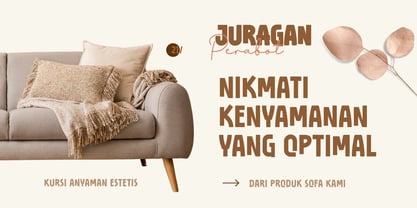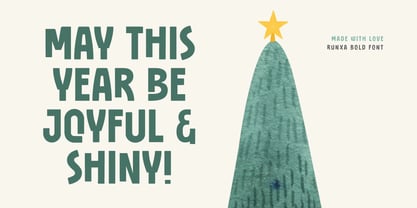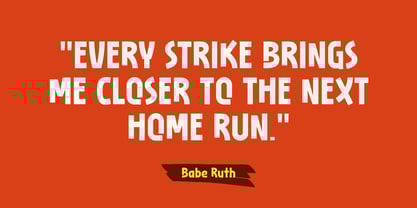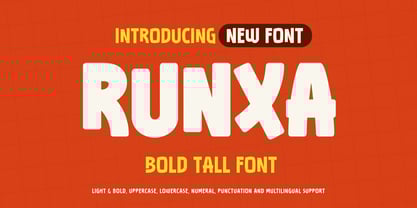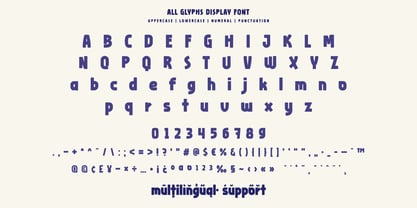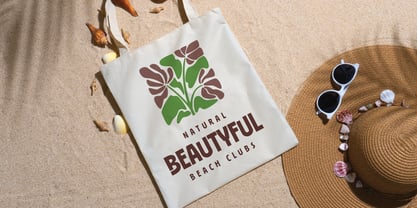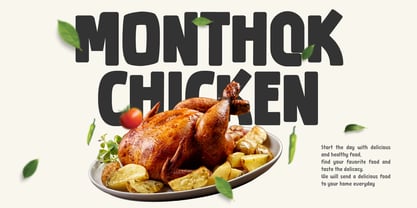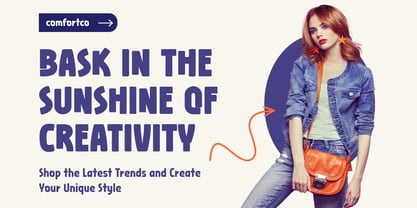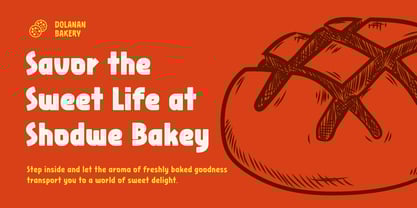
Runxa
by Trabas Kriya
The Runxa Font Family was designed by Murozakul Akhsan and published by Trabas Kriya. Runxa contains 2 styles and family package options. More about this family
Runxa is a striking bold tall display font designed to command attention and elevate your headlines. With its extra-tall letterforms, strong vertical presence, and thick strokes, Runxa is ideal for impactful posters, magazine titles, album covers, sports branding, and streetwear designs.
Its bold stature makes every word stand tall and proud—perfect for projects that need to make a strong, memorable statement. Whether you’re going for edgy, modern, or urban aesthetics, Runxa brings a powerful and stylish energy that resonates across both digital and print media.
Let your text rise above the noise—Runxa is built to stand out and be remembered.
- All glyphs and Feature
- Fonts include Multilingual: Support for 85 languages
Afrikaans, Albanian, Asu, Basque, Bemba, Bena, Breton, Catalan, Chiga, Cornish, Croatian, Czech, Danish, Dutch, Embu, English, Esperanto, Estonian, Filipino, Finnish, French, Friulian, Galician, Gusii, Hungarian, Indonesian, Irish, Italian, Kabuverdianu, Kalenjin, Kamba, Kikuyu, Kinyarwanda, Latvian, Lithuanian, Lower, Sorbian, Luo, Luxembourgish, Luyia, Machame, Makhuwa-Meetto, Makonde, Malagasy, Maltese, Manx, Meru, Morisyen, North, Ndebele, Norwegian Bokmål, Norwegian Nynorsk, Nyankole, Oromo, Polish, Portuguese, Quechua, Romanian, Romansh, Rombo, Rundi, Rwa, Samburu, Sango, Sangu, Scottish, Gaelic, Sena, Serbian, Shambala, Shona, Slovak, Slovenian, Soga, Somali, Spanish, Swahili, Swedish, Swiss German, Taita, Teso, Turkish, Upper Sorbian, Uzbek (Latin), Volapük, Vunjo, Walser, Zulu.